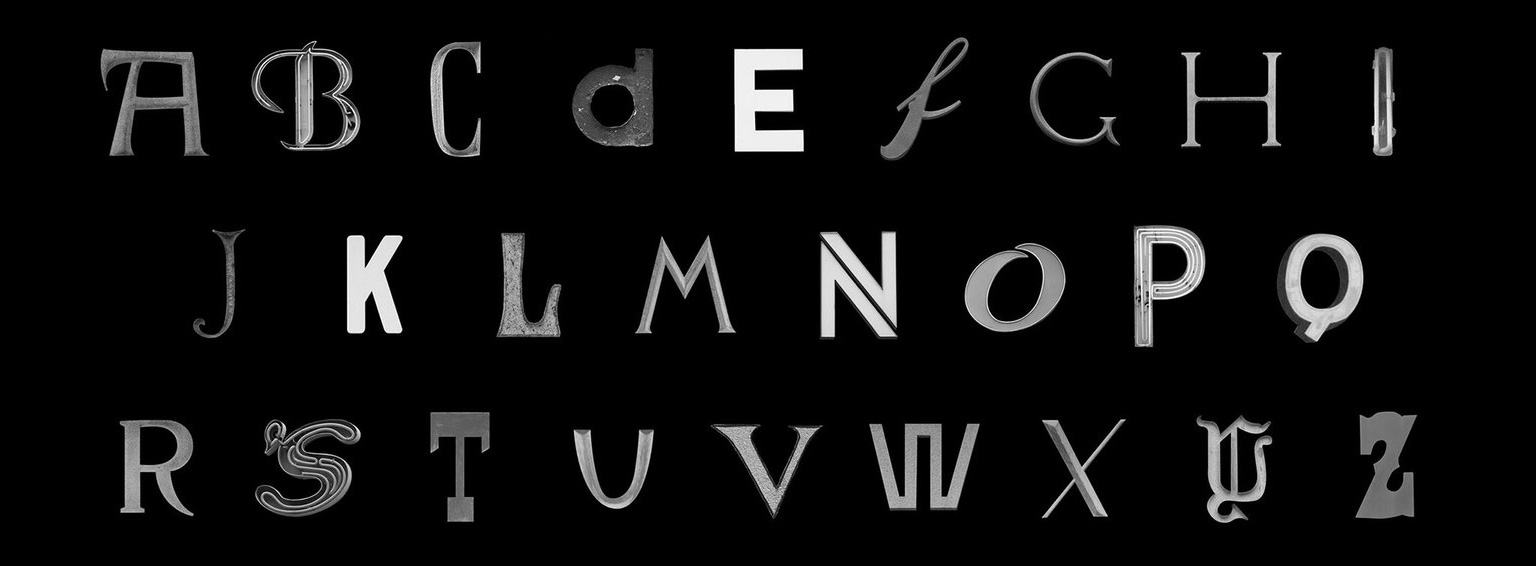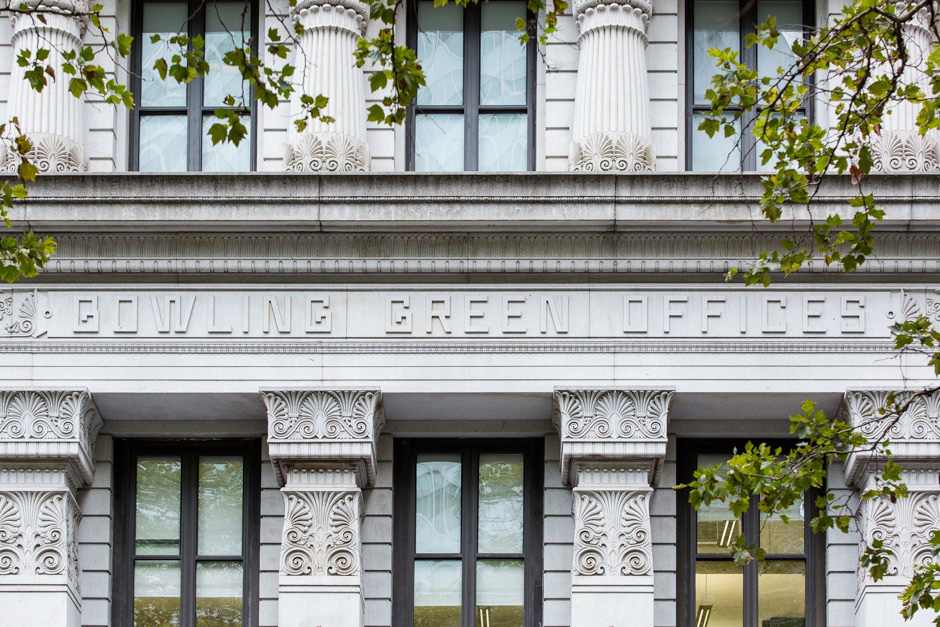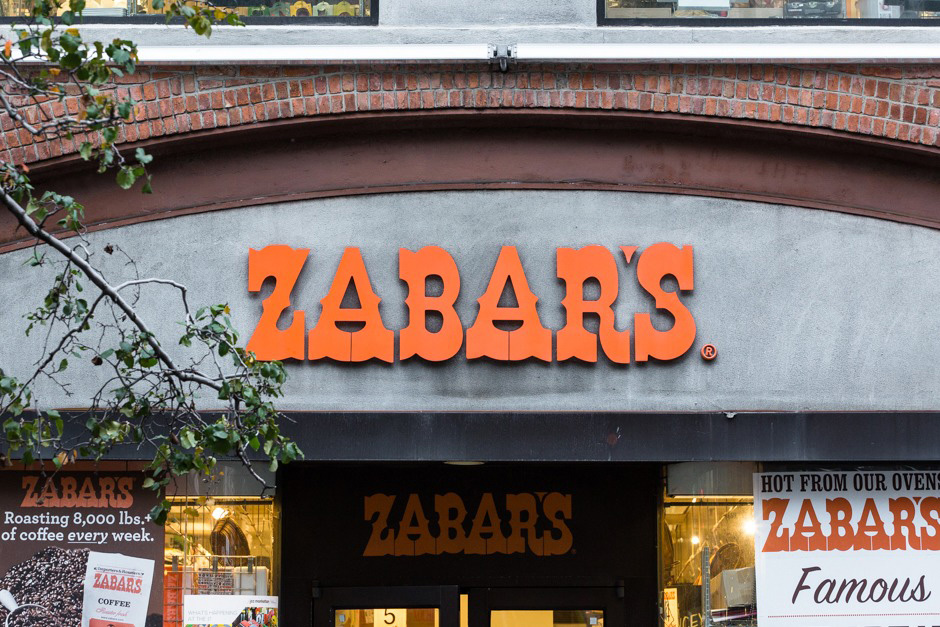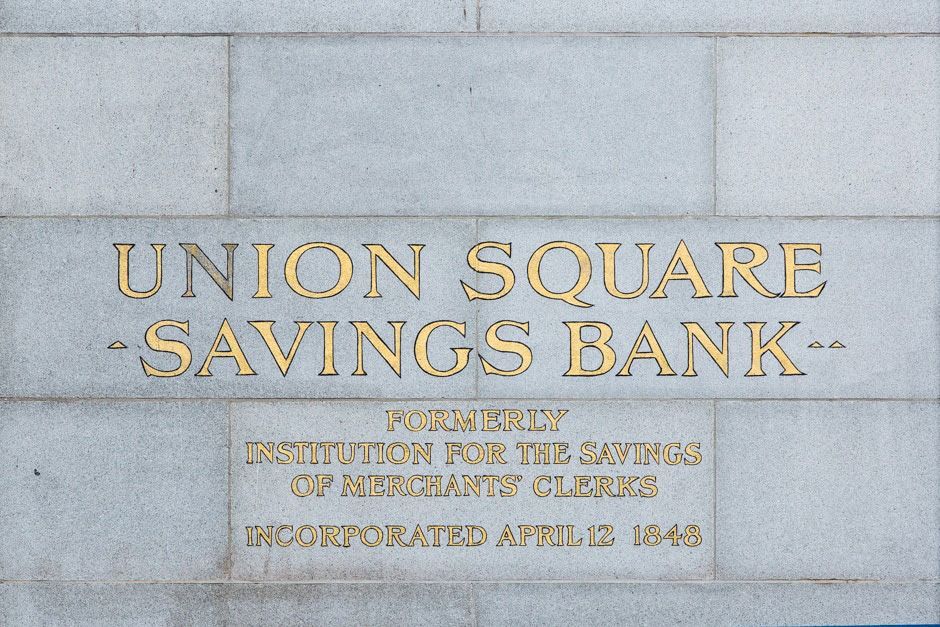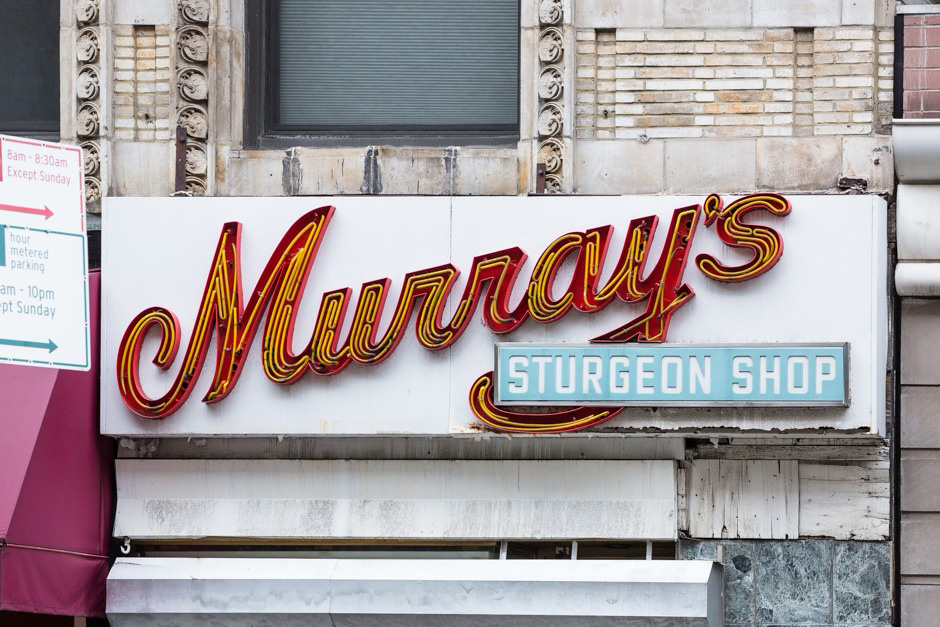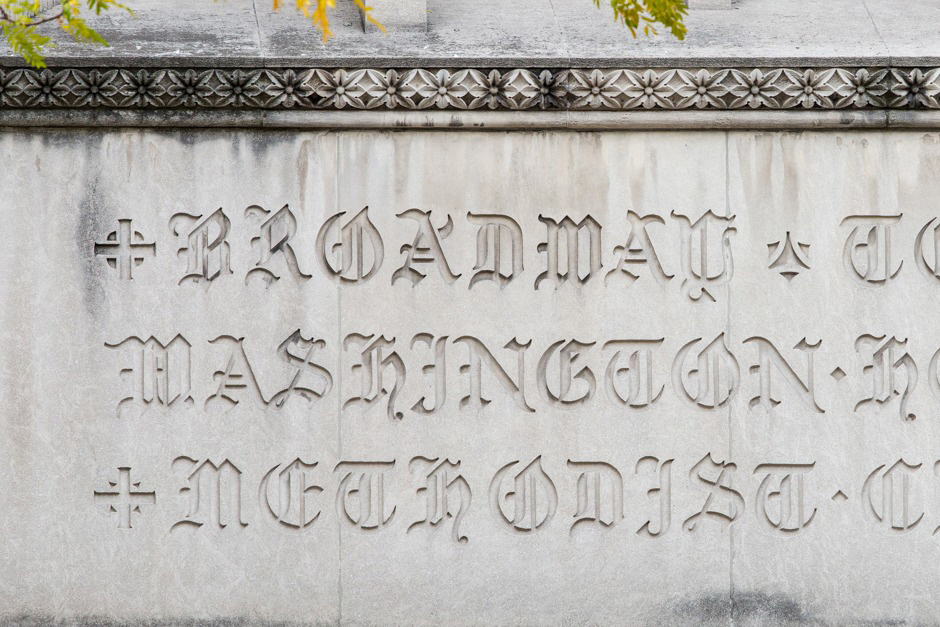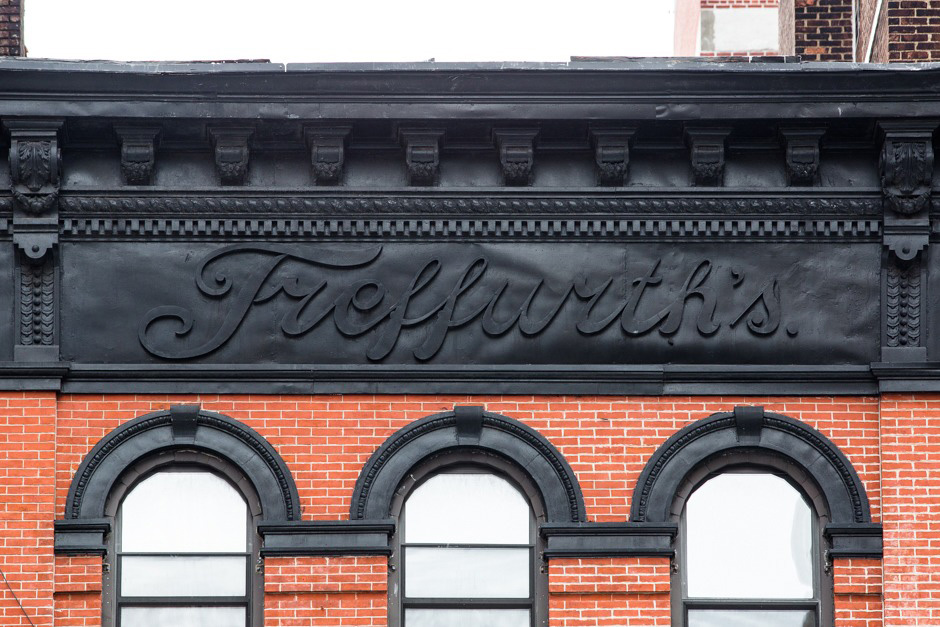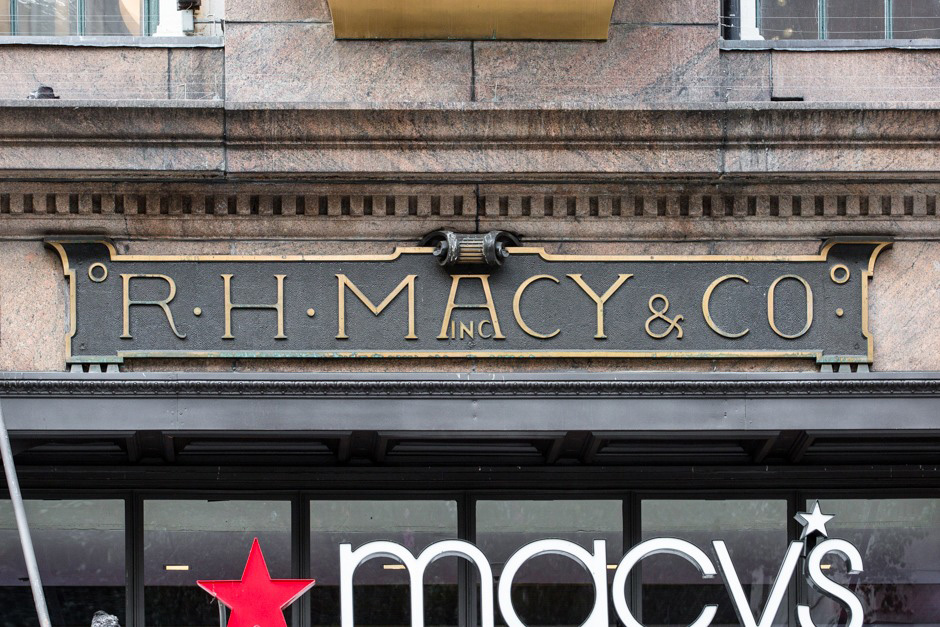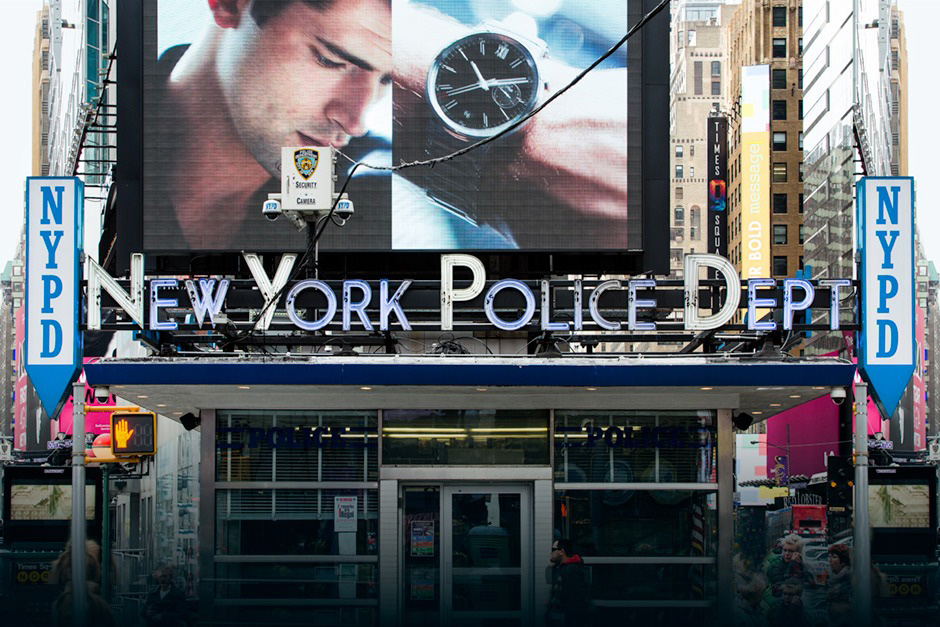
The typographic dominance of Broadway from A to Z
Broadway is easily America’s most famous thoroughfare. Starting in lower Manhattan at Bowling Green and running the entire length of the island, it strings together some nine to fifteen neighborhoods—depending on who you ask—before bleeding over into the Bronx, serving as a cross-sectional study of the City’s diversity in ethnicity, utility and design” says Hopes&Fears introductory text to what is an amazing travelogue in one of the most prominent cultural hot spots of humanity today. As the Main Street of Manhattan, Broadway exhibits a catalogue of lettering—from neon lights to mom-and-pop shop signs, from theater marquees to building names the site tours the typography of Broadway with the help of typography expert Ksenya Samarskaya.
“Starting out at Broadway and W 181st St, the team traveled by bicycle down Broadway to Bowling Green on the lookout for outstanding lettering, documenting around 200 samples” they say regarding their methodology. “We then worked to identify and classify each specimen. With Samarskaya’s help, we narrowed our choices to 26 images, focusing on exhibiting as diverse a range of type category, classification and method of production as possible, while showcasing a distinct letter or digit for each in the alphabet”. These are some of the highlights of the project that caught Typeroom’s attention.
732 Broadway, Treffurth’s
“Despite its distinct lettering, Treffurth’s is an easily-missed relic of Broadway-past. Sitting at the very top of its four-story Renaissance-revival location, the sign dates back to around 1900, when Richard L. Treffurth assumed the lease and opened his eponymous restaurant on the ground floor…
…The lettering itself appears as a bas-relief engraving in the galvanized iron cornice. The joined script is reminiscent of a Morris Fuller Benton script typeface; it most closely resembles ATF Commercial Script, but Treffurth’s predates the inception of Commercial Script by eight years. Notable is the mustache-like “h”, which makes one ponder if the proprietor had a mustache as well. Also evident is the choice to include a period at the end of the name, which according to designer and tech journalist Adam Banks was common at the time. “Typography [during this period] tended to be highly decorative, so any addition that could be made was welcomed as an extra element to work with. See the commas, for example, in this business card” Banks explains. Banks points out that the “perfection” of the lettering is another element unique to the era, especially visible in the nearly-identical “f’s”.
Macy’s Herald Square, R. H. Macy & Company Store
“The typeface for the modern Macy’s department store logo is a cautious ITC Avant Garde Gothic ExtraLight, suitable for the mass mainstream appeal that the company depends on. But the Broadway entrance of Macy’s flagship store at Herald Square displays two vintage logos with a bit more character. The first is the massive slab serif gold lettering that fills the five central windows of the building’s third floor. Historically, slab serifs were designed to grab a reader’s attention (e.g. “WANTED” criminal posters), a fairly predictable choice for the famously sensational company.
Less visible but far more unique is the bronze R. H. Macy & Co. sign above the metal awning, that was almost certainly a one-off design for the store. The “R. H.” is a pretty standard Oldstyle Roman. “Macy & Co.” lettering falls out of step with this however—the vertex on the “M” doesn’t meet the baseline and the “C” ends in clean finials, both atypical choices for a Roman typeface. The “A” is especially unique, reminiscent of the Victorian Oxford No. 2 typeface created in 1893 by the Cleveland Type Foundry. The vertically-centered periods and decorative “degree” symbols are also characteristic Victorian flourishes.”
Times Square, Times Square NYPD substation
Times Square is known for its flashy signage, so it’s only natural that the NYPD substation located right smack in the middle of the “Center of the Universe” did its best to fit in…. Tom Rinaldi, author of New York Neon, speculates that the sign went up around the same time. “Until a few years ago, there was only one sign, facing north, with red and white lettering and an animated flashing sequence,” Rinaldi tells Hopes&Fears. The sign was recently replaced by Lettera Sign Company (now the Infinity Signs NYC) located in the Bronx, who managed to replicate the original with one exception; instead of the authoritarian flashing red and white sequence, Rinaldi notes that “the colors were changed to blue and white to match the NYPD standard.” Infinity Signs has been involved in a handful of electric displays in the area, including the New Year’s Eve 2009 signage.
The lettering itself is similar to—though by no means exactly—Kabel, a geometric sans serif designed by German type master Rudolf Koch in 1927 (though conspicuously missing is the type’s slanted terminals). Translating to “cable” in English, typography historians surmise that the name is an homage to technological progress in communication, a thematic expression embraced by the type designers behind the geometric sans movement. Kabel itself most notably appears as the font of the capitalist board game Monopoly, making the NYPD sign somewhat of a prescient symbol of Times Square as it stands today.”
111 Broadway, Subway Entrance, Trinity Building
“The letters are what I call quasi-classical,” Shaw explains, “that is, they want to be classical—note the dots which stand in for Roman interpoints—but are not entirely successful.” His assessment, he says, “is based on the short, curved leg on the ‘R’, the very short mid stroke of ‘E’, the clumsy ‘S’ and the too small upper bowl of ‘B’.”
2429 Broadway, Murray’s
“New York Neon author Tom Rinaldi calls the shop’s sign one of his favorites, and for good reason—with its yellow-on-red neon and upwards angle, Murray’s presents a peek into a bygone era when neon signs dominated the City. First introduced to New York in 1924 when neon sign inventor Georges Claude opened up shop in the City, neon quickly swelled in popularity. According to the American Sign Museum, the neon sign industry was bringing in about $18 million in business by 1929, sustaining demand throughout the 1930s and into the 1940s. “The high point of all neon signs probably was reached just prior to 1948,” the Museum speculates.
Murray’s sign, however, comes at the very tail end of neon’s popularity. Though the store has been around since 1946, Ira Goller, proprietor of the shop since 1990, tells Hopes&Fears that the iconic sign came later. “Everything inside is original from when the store was first built, but I don’t think the sign has been here since the store was first built,” Goller says, “but I think it’s been here since at least the early 60s.” Rinaldi came to a similar conclusion. “For many signs, it’s possible to pinpoint an installation date by way of Department of Building records—but for this sign unfortunately I was not able to do that,” Rinaldi explains. He suspects the sign was installed somewhere between 1950-55, just as neon’s reputation was starting to get sullied by its association with Sin City and seedy motel signs.”
24 Union Sq E, Union Square Savings Bank
“… The gilded lettering at the entrance of the bank is reminiscent of a Latin typeface also inspired by Classical design, a lettering style embraced by the Beaux-Arts. The style was recently revisited by type master Tobias Frere-Jones, who in 1998 created a font called Grand Central inspired by the hand-painted lettering on the walls of Grand Central Terminal (another prime example of Beaux-Arts architecture and completed in 1905, two years before Union Square Savings Bank).”
11 Broadway, Bowling Green Offices
“The lettering is actually similar to a very American typeface called Antique Geometric, created by the Baltimore Type Foundry in 1883. There are not many examples of the lettering in use, but De Stijl co-founder Theo van Doesburg created a very similar typeface in 1919, adhering to the rectangularity of the art movement. In any case, this was not the first time the brothers Audsley used a geometric rectilinear sans; in 1870, the designers came out with a book called Cottage, Lodge & Villa Architecture, which uses a similarly styled typeface for the title page. Strangely, this comes 13 years before the first Antique Geometric was introduced; the book was also published by London’s William Mackenzie publishing house, suggesting a little creative cross-pollination from across the pond.
4111 Broadway, Broadway Temple Methodist Church
“For all intents and purposes, the Broadway Temple Methodist Church looks exactly as how you’d expect it to look: like a church. And the lettering, like the lettering on many Christian places of worship is a traditional textura blackletter. It’s a causal relationship; medieval manuscript culture was dominated by the church, coinciding with blackletter’s spread across Europe. Textura is also the oldest form of moveable type, invented by Johannes Gutenberg when he started the printing revolution with the Gutenberg Bible.”
2245 Broadway, Zabar's gourmet food store
“Zabar’s celebrated its 80th anniversary in August of 2014, making it a mom-and-pop (or pop-and-sons, really) stronghold along the ever-evolving face of Broadway. Its world-renowned logo, however, does not date back as far; photos of the original storefront, which was a fraction of the size of the now 20,000 square foot food-and-housewares emporium, expose a modest sans serif that reflects the Upper West Side institution’s humble beginnings.
Its current bright orange bifurcated Tuscan is what Steve Heller calls “classic but anachronistic.” Noted for its popularity in Victorian printed matter such as circus posters and theatre bills, the first typographic Tuscan was created by Vincent Figgins in 1817. The Zabar’s logo, however, is closer to the woodcut Antique Tuscan introduced by Darius Webb and E.R. Wells in their 1949 type catalogue, Specimens of Wood Type. “What it says about deli food is a mystery,” Heller quips, “but since they’ve owned it for so long, the question is irrelevant.” And he’s right; the type is so well-ingrained in the mind of New Yorkers as “the Zabar’s logo,” that K-Type type foundry created a font based on—and named after—the famous deli.”